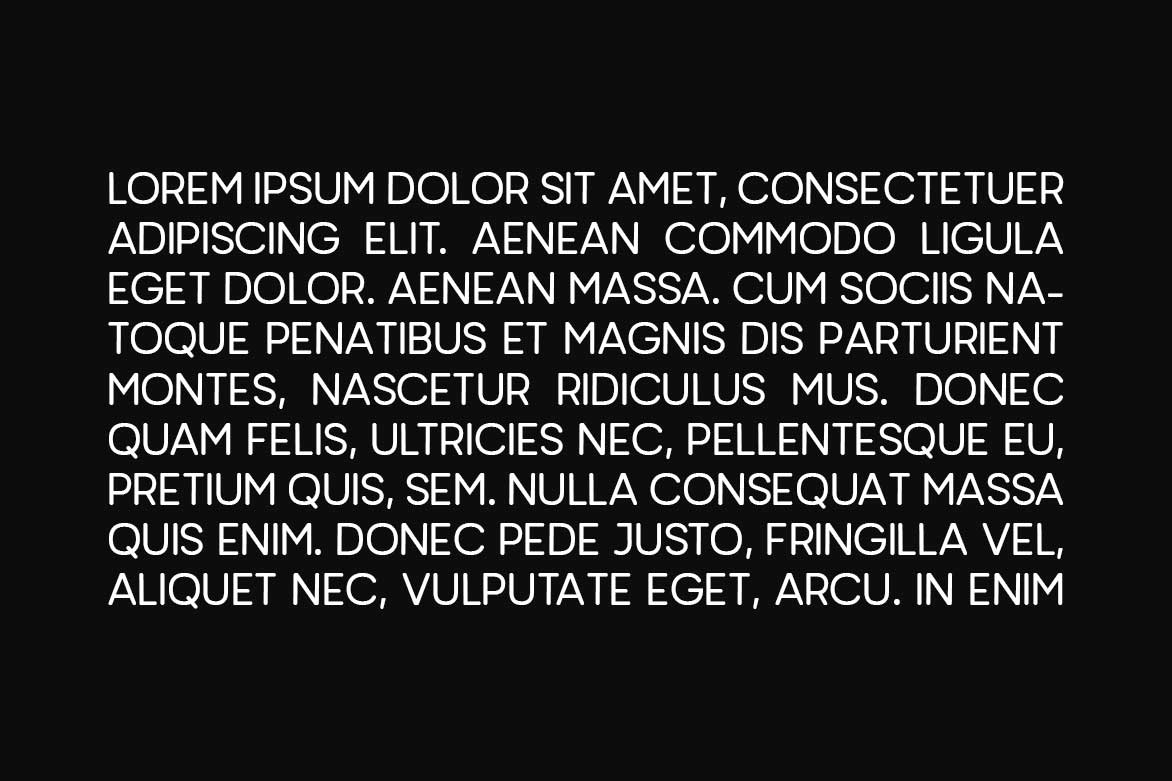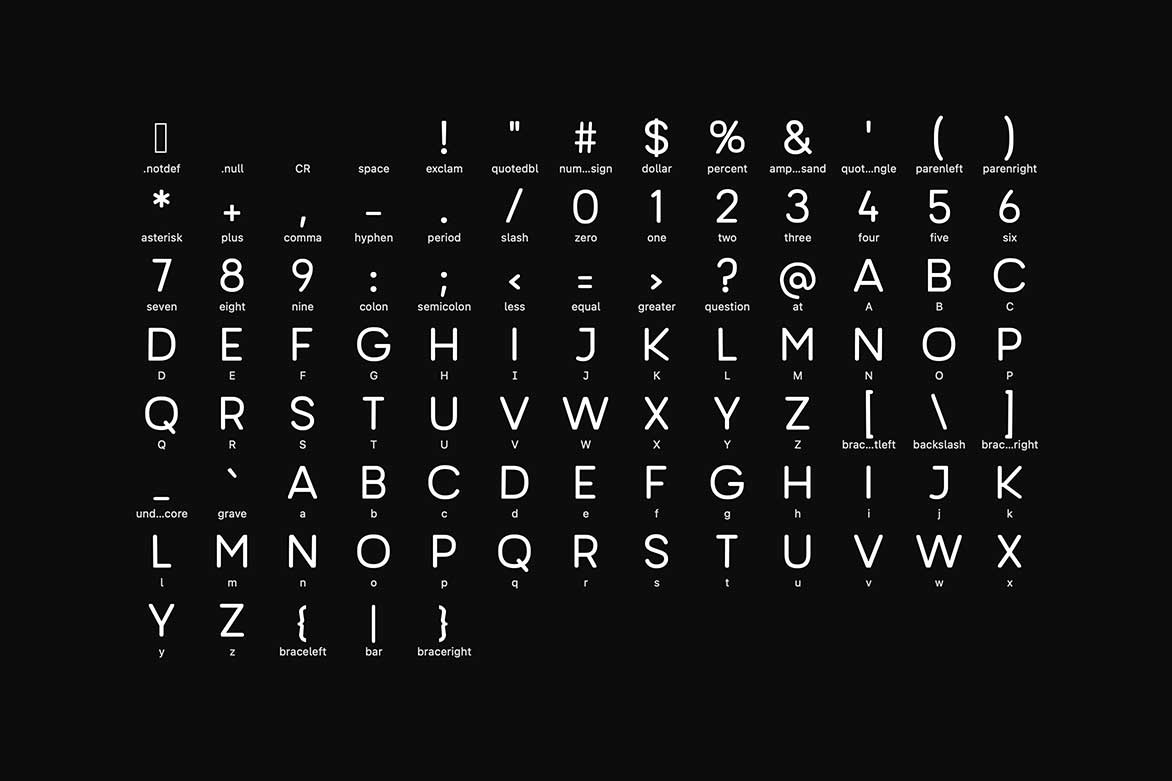
Another modern fantastic sanserif typeface from Unbranded, which delivers a remarkable unique typography style. Jackylin Sans Family available in four weights, Light, Regular, Bold, and Black included in the pack. The pack also includes OTF, TTF and Web Fonts